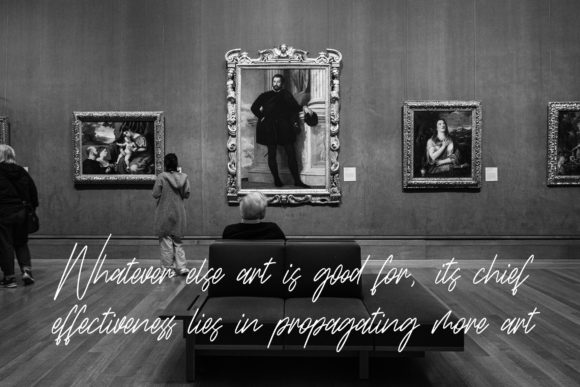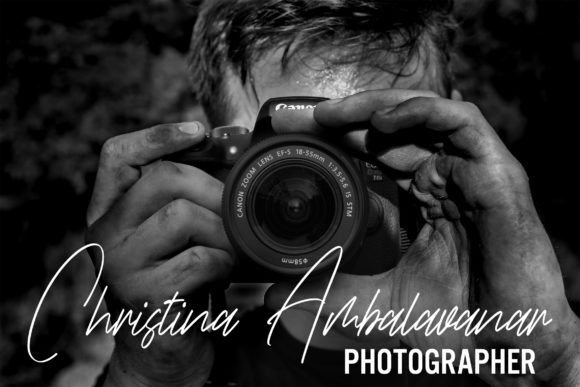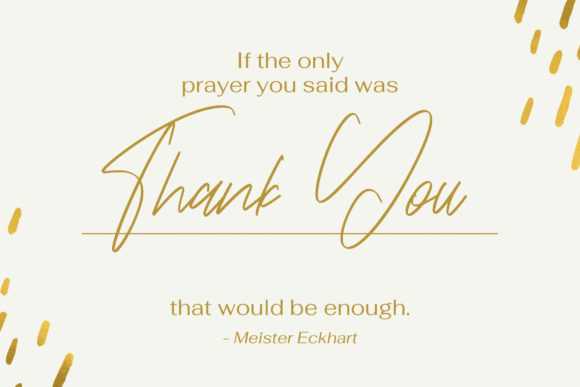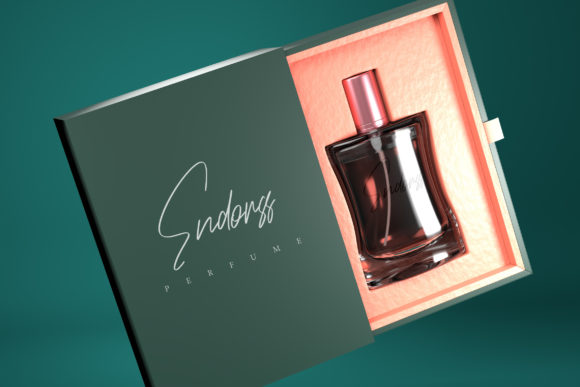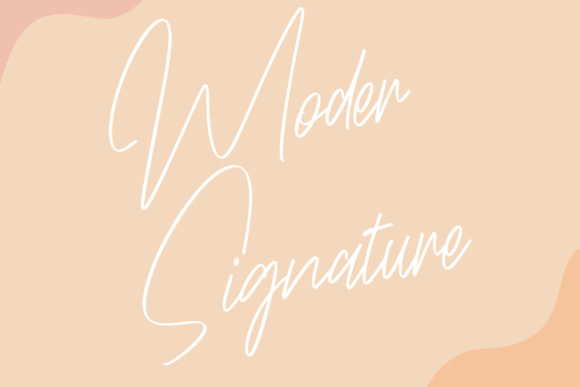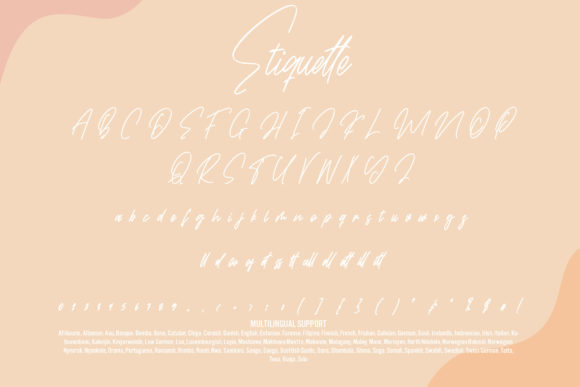
Etiquette Font: Elevate Your Designs with a Relaxed, Thin, and Delicate Script Font
Are you a designer or crafter looking for a font that can add a touch of elegance and sophistication to your creations? Look no further than the Etiquette Font. This beautiful script font is designed to bring a relaxed, thin, and delicate feel to your designs, making it perfect for a wide range of projects.
What is Etiquette Font?
Etiquette Font is a stunning script font that is characterized by its thin and delicate lines. The font has a relaxed feel, which makes it perfect for designs that require a touch of elegance and sophistication. The Etiquette Font is designed to be versatile, making it suitable for a wide range of projects, from wedding invitations and branding materials to packaging and digital designs.
Key Features of Etiquette Font
The Etiquette Font has several key features that make it an excellent addition to any designer’s font library. Some of the key features include:
- Relaxed and delicate feel: The Etiquette Font has a relaxed and delicate feel that makes it perfect for designs that require a touch of elegance and sophistication.
- Thin lines: The font features thin lines that give it a light and airy feel, making it perfect for designs that require a subtle touch.
- Script style: The Etiquette Font is a script font, which means it has a flowing and connected style that is perfect for designs that require a touch of elegance.
- Versatile: The Etiquette Font is designed to be versatile, making it suitable for a wide range of projects, from wedding invitations and branding materials to packaging and digital designs.
Uses of Etiquette Font
The Etiquette Font is a versatile font that can be used for a wide range of projects. Some of the most popular uses of the font include:
- Wedding invitations: The Etiquette Font is perfect for wedding invitations, as it adds a touch of elegance and sophistication to the design.
- Branding materials: The font is also suitable for branding materials, such as logos and business cards, where a touch of elegance and sophistication is required.
- Packaging: The Etiquette Font can be used for packaging designs, such as labels and product packaging, where a delicate and elegant touch is required.
- Digital designs: The font can also be used for digital designs, such as social media graphics and website headers, where a touch of elegance and sophistication is required.
Why Choose Etiquette Font?
There are several reasons why you should choose the Etiquette Font for your designs. Some of the reasons include:
- Elegant and sophisticated: The Etiquette Font adds a touch of elegance and sophistication to any design, making it perfect for projects that require a high-end feel.
- Versatile: The font is versatile and can be used for a wide range of projects, making it an excellent addition to any designer’s font library.
- Easy to read: The Etiquette Font is easy to read, even at small sizes, making it perfect for designs that require a lot of text.
- Unique: The Etiquette Font has a unique and distinctive style that sets it apart from other fonts, making it perfect for designers who want to create unique and eye-catching designs.
In conclusion, the Etiquette Font is a beautiful script font that is perfect for designers and crafters who want to add a touch of elegance and sophistication to their creations. With its relaxed, thin, and delicate feel, the font is suitable for a wide range of projects, from wedding invitations and branding materials to packaging and digital designs. Whether you’re looking for a font that is elegant, sophisticated, and versatile, the Etiquette Font is an excellent choice.